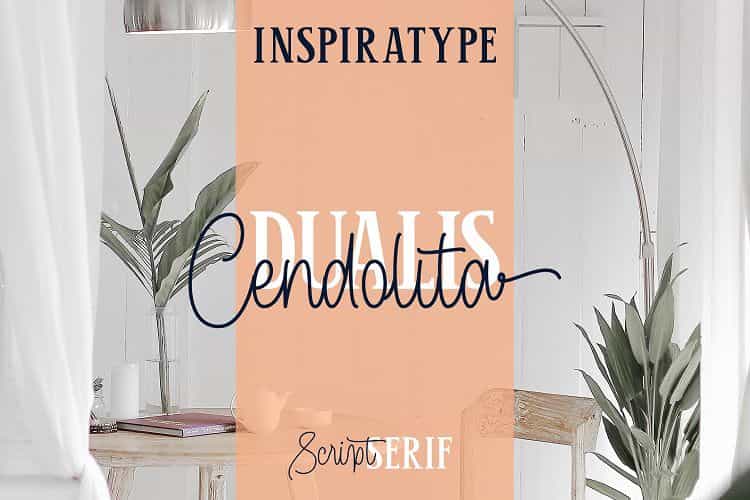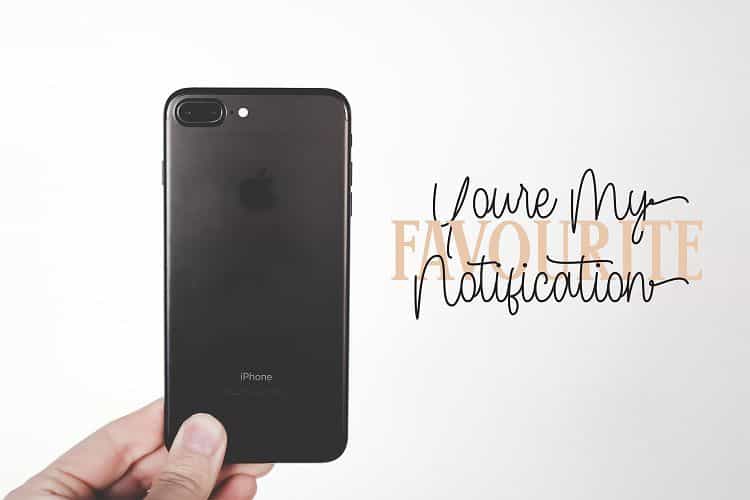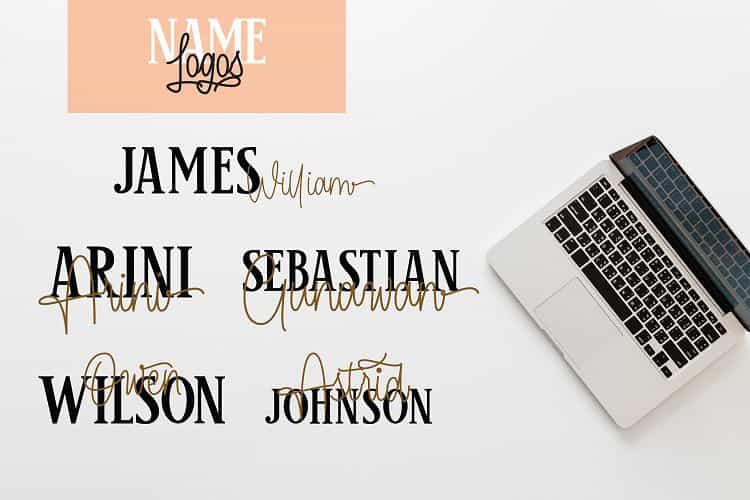
Discover Cendolita Dualis Font Duo, part of the Handwritten Serif collection—a versatile and unique font perfect for adding a personal touch to your projects. Download it for free and enjoy crafting designs with style, from invitations to social media posts. This font is available exclusively for personal use, giving you the freedom to create without limits. Unlock your creativity with Cendolita Dualis Font Duo today!
Cendolita Dualis Script and Serif Font – a brand new handwritting font duo by Inspiratype. Cendolita Dualis Font Duo is a font display that has been done by hand and it was inspired by the classic posters. , it has the upper and lower case ones, numbers, punctuations as well as so many variations on each character. For instance opentype alternates are also there common ligatures are used plus you can add some more swash to customize your work. Best for Logotype, Letterhead, Poster, Apparel Design and Label.